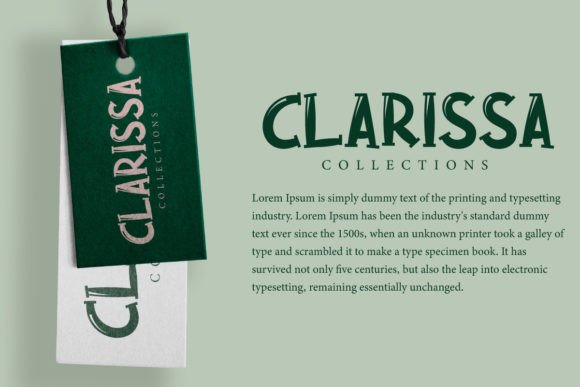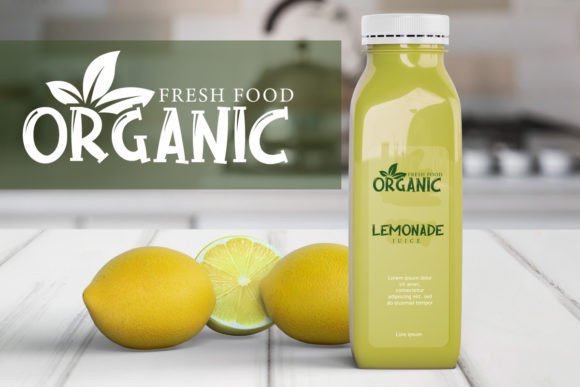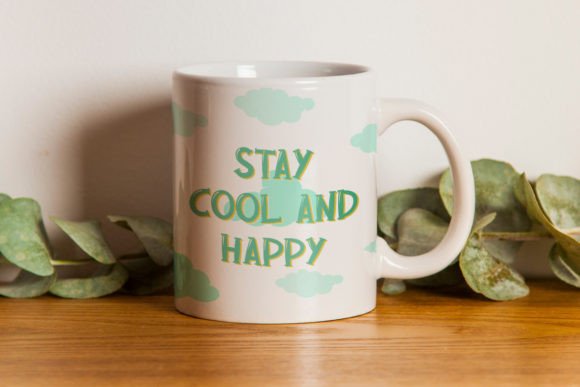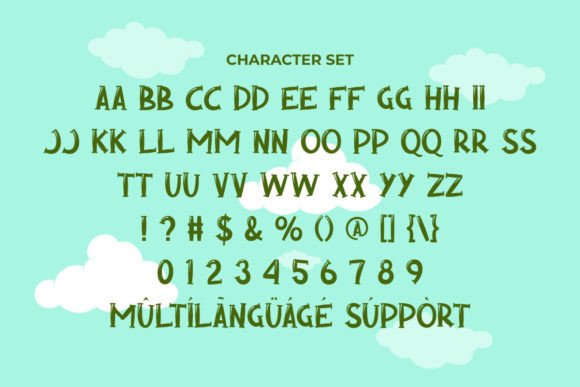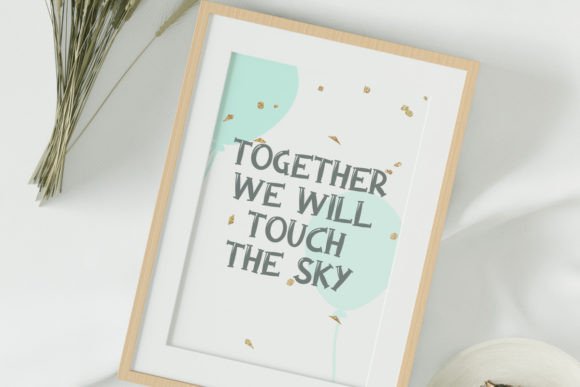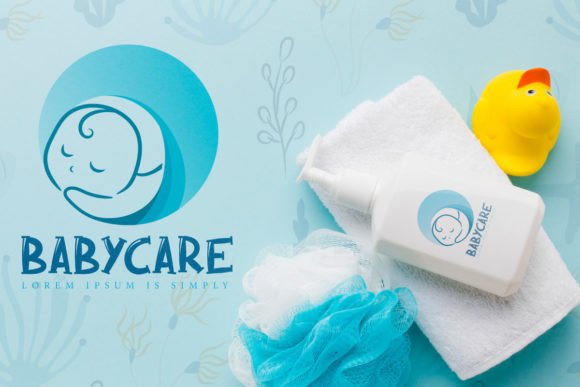
Introduction to Green Balloon Font
Who hasn’t felt the excitement of brainstorming a new creative project, surrounded by scribbled notes, colorful pens, and a dash of inspiration? For designers, this moment is a thrill that never gets old. It’s the spark that ignites the flame of creativity, and with the right tools, the possibilities are endless.
One such tool that can elevate your designs to the next level is the Green Balloon Font. This playful and bouncy display font is a game-changer for anyone looking to add a touch of whimsy to their work. With its rounded and slightly imperfect shapes, Green Balloon Font is the perfect design resource for designers who want to create high-quality visuals that stand out from the crowd.
Whether you’re working on a children’s book, social media graphics, or party invitations, Green Balloon Font is sure to bring a smile to your audience’s face. And the best part? You can download it for free, complete with a transparent background, making it a versatile design resource that’s perfect for any project.
Key Features of Green Balloon Font
• High-quality, unique design: The Green Balloon Font offers a distinctive and creative approach to typography, making it an ideal choice for designers working on innovative projects.
• Transparent background: The font features a transparent background, allowing designers to easily overlay it on various backgrounds without any visual clutter.
• Large character set: This font includes a comprehensive character set, including uppercase and lowercase letters, numbers, and punctuation marks, making it suitable for a variety of creative projects.
• High-resolution design: The Green Balloon Font is designed at a high resolution (300 DPI), ensuring that it remains crisp and clear when used in large formats or high-quality prints.
• Perfect for creative projects: With its unique design and high-quality features, the Green Balloon Font is an excellent choice for designers working on creative projects, such as branding, advertising, and editorial design.
Honest Review: Green Balloon Font
I recently had the chance to work with the Green Balloon Font for a creative project and I must say, it was a pleasant experience. The font is a high-quality design resource that’s perfect for anyone looking to add a touch of whimsy to their work.
Here are some things that worked well for me:
• ✨ High-quality design: The Green Balloon Font is well-designed and looks great on both light and dark backgrounds.
• ⚠️ Limited font styles: The Green Balloon Font only comes in a few different styles, which might not be ideal for designers who need a lot of options.
• ⚠️ Not suitable for all projects: The font’s playful design might not be the best fit for all types of projects, such as formal business reports or serious editorials.
Overall, I think the Green Balloon Font is a great addition to any designer’s toolkit. While it may have some limitations, its high-quality design and transparent background make it a valuable resource for creative projects.
To get the most out of the Green Balloon Font, use it in conjunction with other design elements such as icons, graphics, and images. You can also experiment with different font sizes, colors, and styles to create unique and visually appealing designs.
The Green Balloon Font is suitable for a wide range of creative projects, including logos, brochures, business cards, and social media graphics. It’s also a great resource for designers who want to create high-quality, professional-looking designs without breaking the bank.
Is the Green Balloon Font suitable for use on a transparent background?
Yes, the Green Balloon Font has a transparent background, making it ideal for use on images, videos, or other design elements where a transparent font is required. This feature also allows designers to easily combine the font with other design elements, adding depth and visual interest to their creative projects.